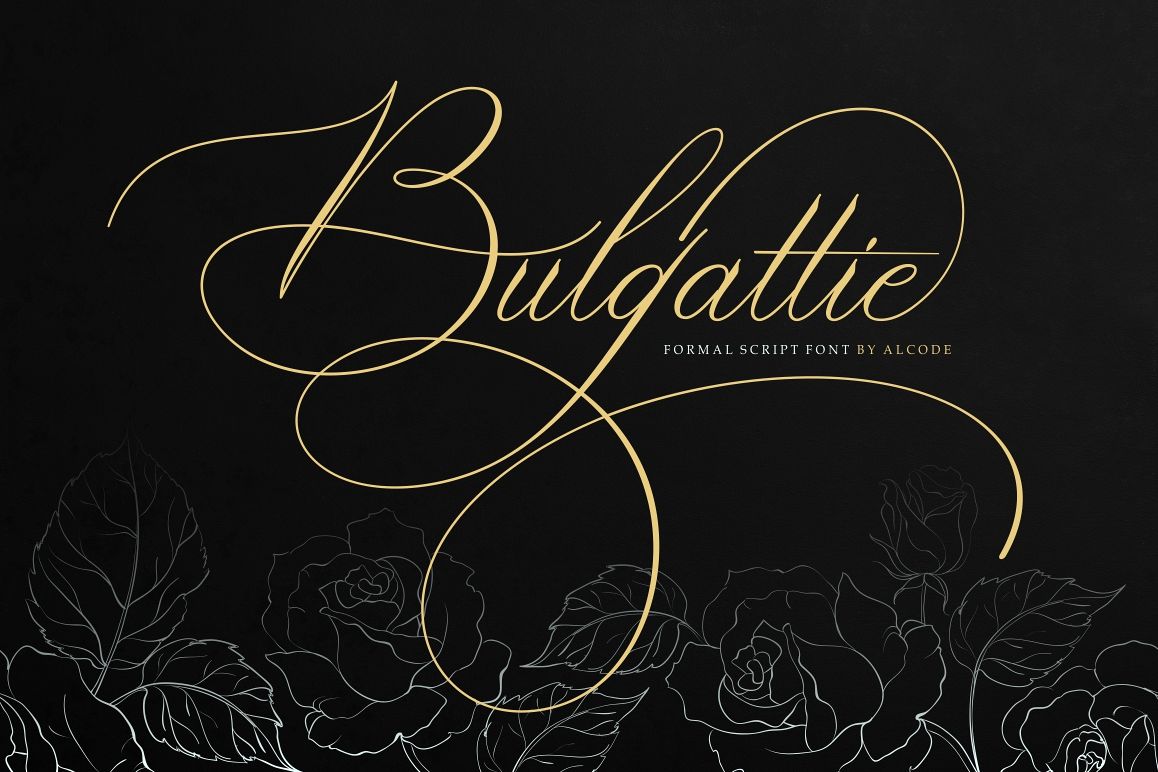
Bulgattie
Introducing Bulgattie
Bulgattie is actually a unique font, I build it with the spontaneity of my relaxed hands. designing a formal font but having a classic element, which makes it particularly suitable for wedding media, book covers, greeting cards, logos, branding, business cards and certificates, in fact for any design work that requires a clasik, formal or luxury look.
Try Bulgattie, enjoy its wealth of OpenType features and let its vigorous yet elegant exuberance delight you and enhance your creativity! You can use this font very easily.